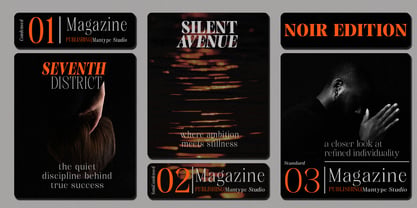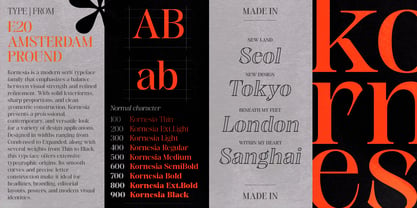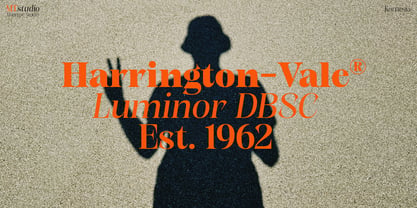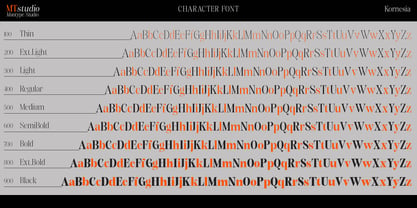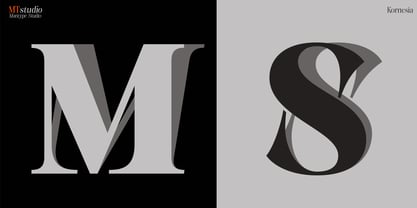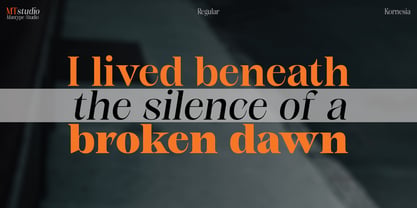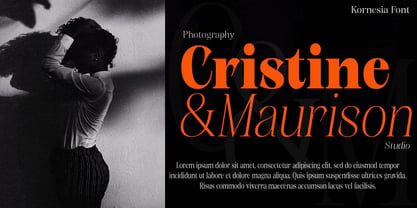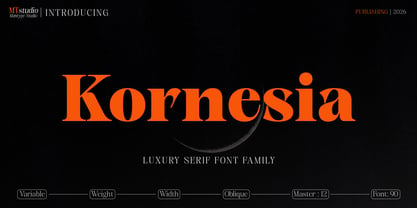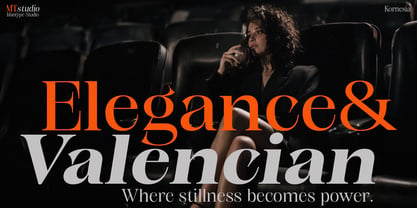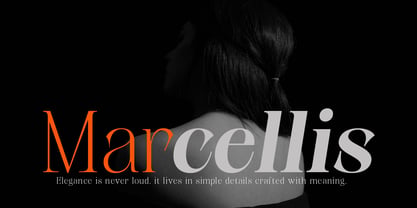
Kornesia
La famille de polices Kornesia a été conçue par Sulai Man et publiée par Mantype Studio. Kornesia contient 91 styles et options de package familial. En savoir plus sur cette famille
À propos de la famille
Kornesia is a luxury serif typeface that blends classic elegance with a bold modern character. Featuring high contrast between thick and thin strokes, it delivers a refined, exclusive, and high-end visual impression. Its sharp yet smooth serifs create a strong rhythm while maintaining a sophisticated aesthetic. The wide and open proportions allow it to stand out beautifully in headlines, while its precise curves add an artistic and polished touch. Kornesia is also designed as a variable font, offering flexibility in weight, width, and oblique styles, making it highly adaptable for various design needs. It is ideal for premium branding, fashion magazines, editorial layouts, logos, and high-end packaging that aim to convey a strong, elegant, and distinctive visual identity.